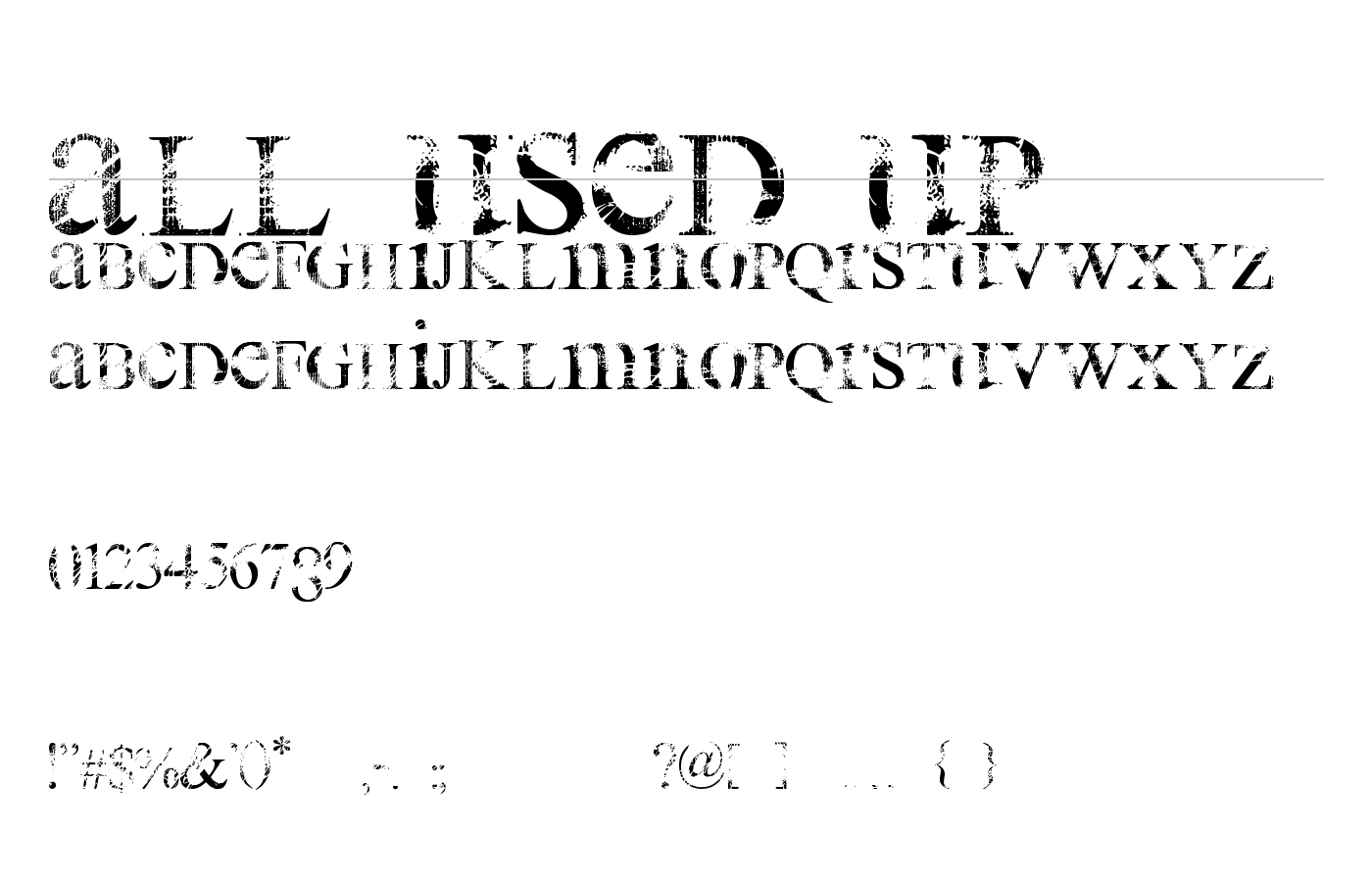
All Used Up is a distressed serif font with a vintage, worn-out aesthetic that evokes a sense of history and character. Its medium weight and classic serif structure are combined with rough, broken textures, making it ideal for designs that want to convey an old-fashioned, rustic, or industrial feel. This font works best for headlines, posters, and branding that aims to appear authentic, gritty, and nostalgic.
all used up Font